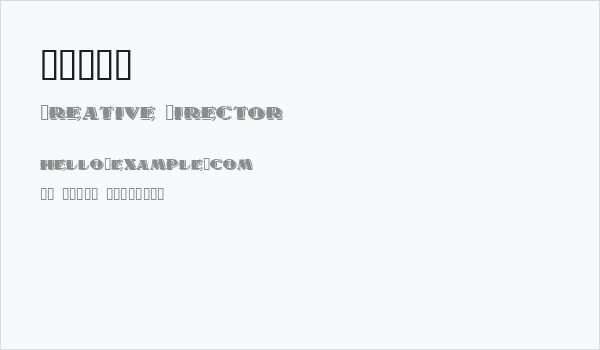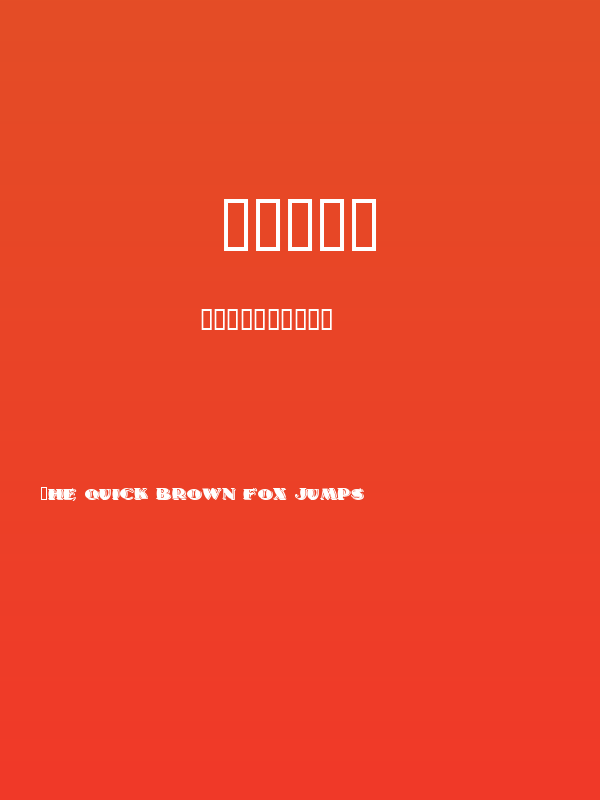
1998A Font
1998A Description
This font features a bold and dramatic style with a strong presence. The uppercase letters are characterized by thick strokes and a shadow effect that gives a three-dimensional appearance. The design includes unique embellishments on certain characters, adding to its decorative nature. The font's boldness and distinct style make it suitable for attention-grabbing headlines and titles. Its artistic flair is evident in the intricate details and the overall impact it creates, making it a perfect choice for projects that require a standout typeface.
| Proposed Projects | Ideal for posters, logos, and branding materials that require a strong visual impact. |